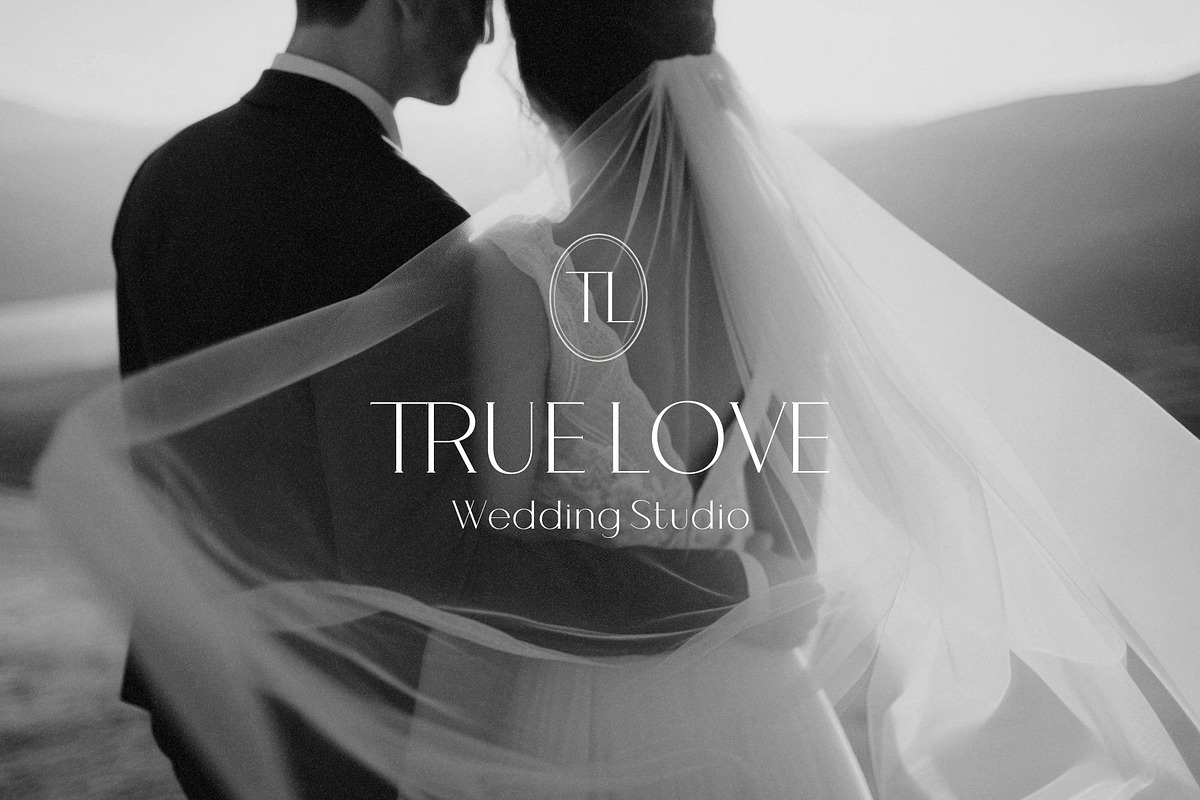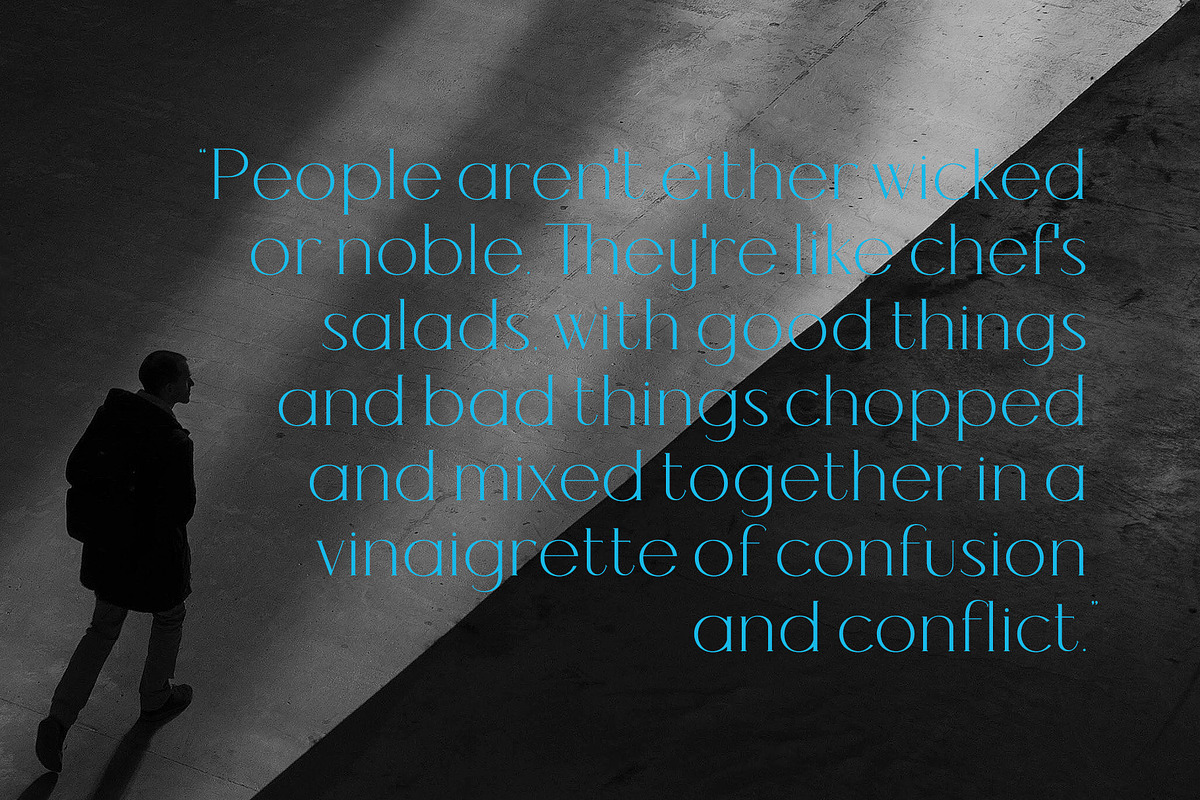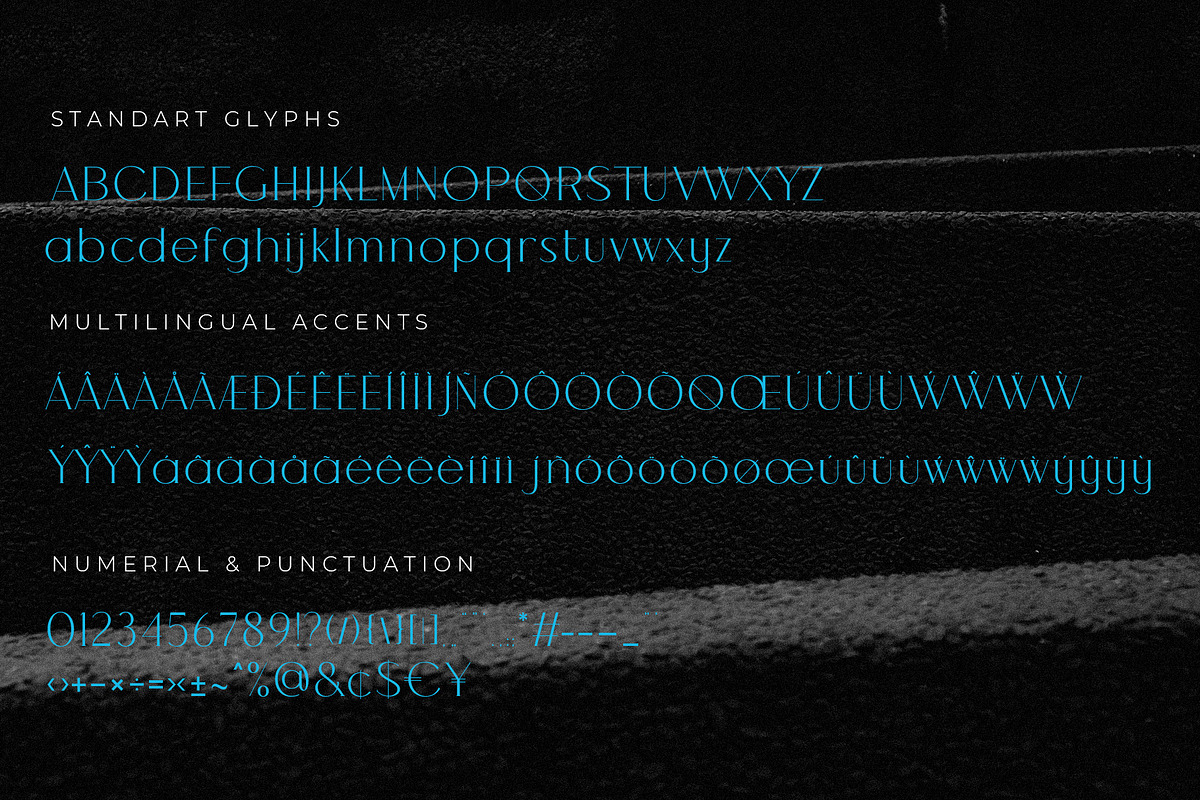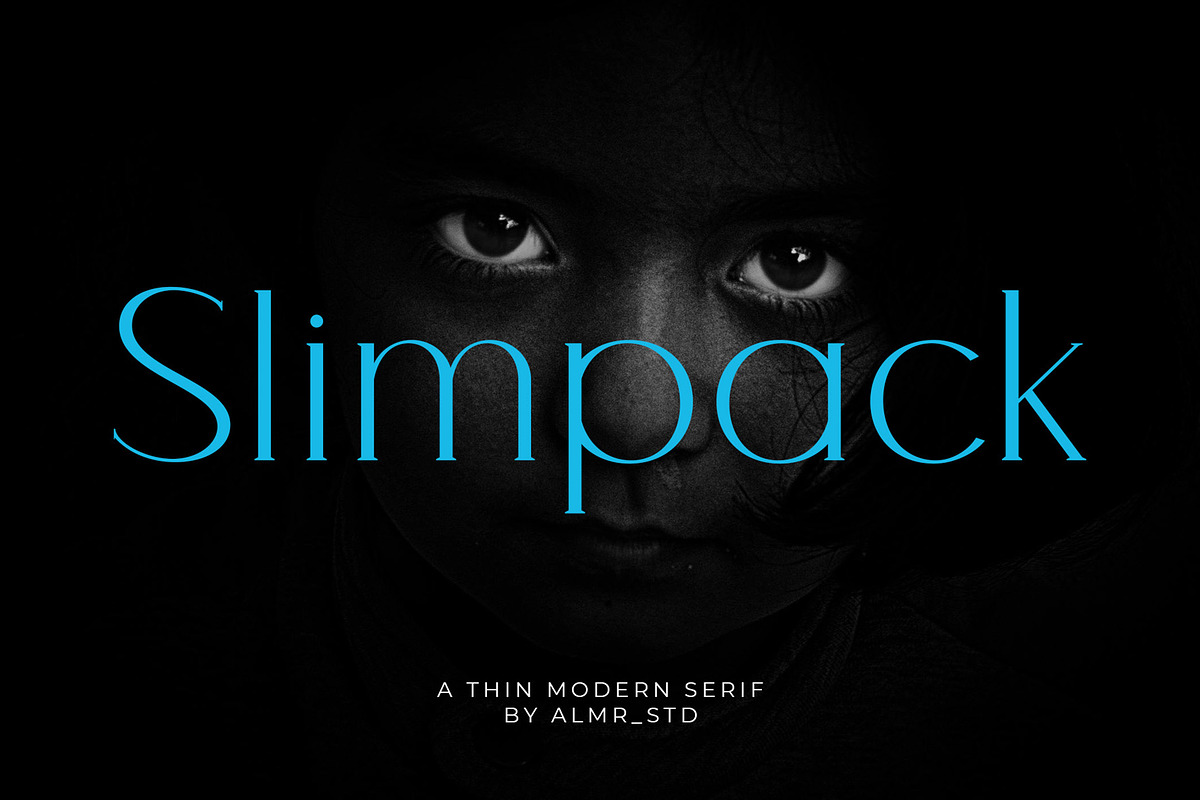
Slimpack - Display Thin Serif
Introducing Slimpack - Display thin serif font. Slimpack is a display, minimalis & thin serif font, This type of font is very suitable for your various needs such as branding projects, logos, social media posts, advertisements, labels, product packaging, photography, wedding designs, watermarks, invitation product designs, stationery, and any project.
- Numerial